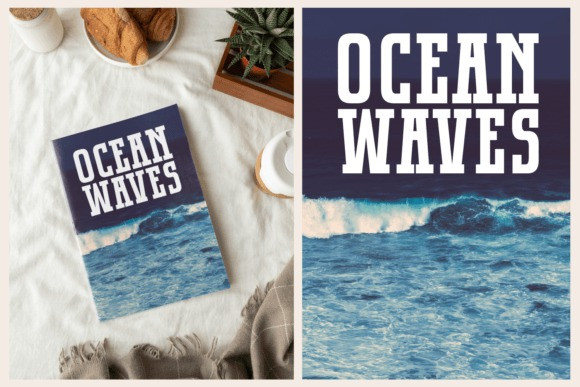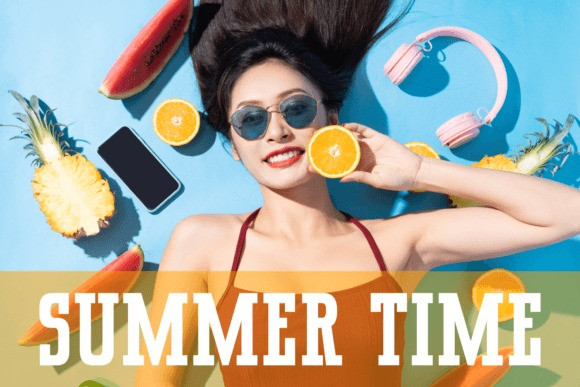
Beach Winds Font
Beach Winds Font is a classic slab serif font with a subtle modern twist. No matter the topic, this font will be an incredible asset to your fonts’ library, as it has the potential to elevate any creation.